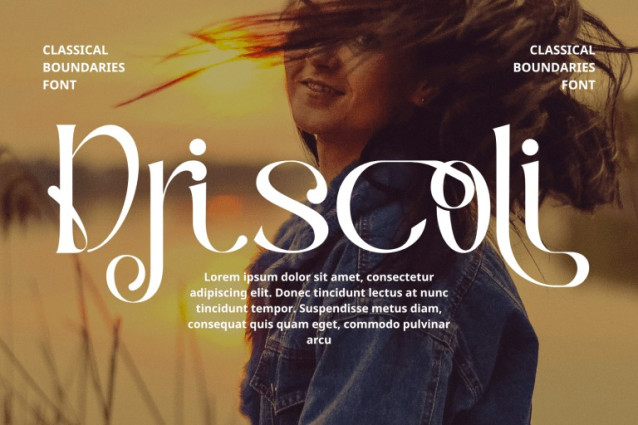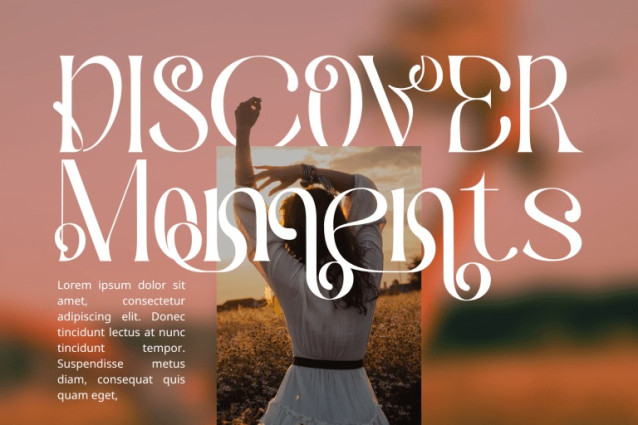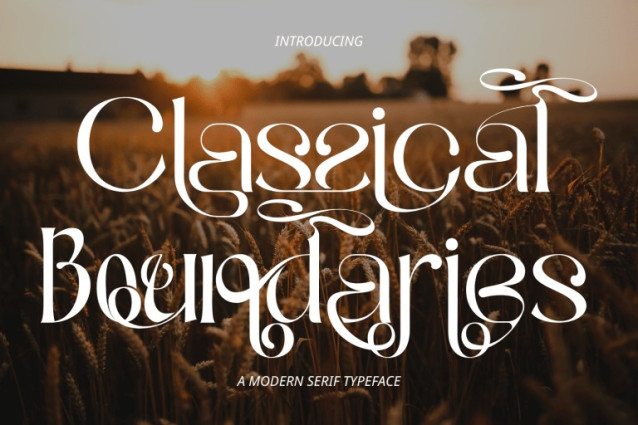
Classical Boundaries Font
Classical Boundaries – Modern Serif Font, a sophisticated Modern Serif Display Font that blends timeless elegance with contemporary artistry. Featuring graceful curves, sharp serifs, and stylish decorative swashes, this font is designed to add luxury and refinement to any design project. Perfect for branding, editorial layouts, invitations, fashion titles, and artistic visuals, Classical Boundaries captures a perfect balance between classical beauty and modern design sensibility.
🔤Features:
Uppercase & Lowercase Letters
Around 100 Special Ligatures for creative combinations
Accented Characters for multilingual support
🔤About 100 ligatures combined with Stylistic Alternates Font: